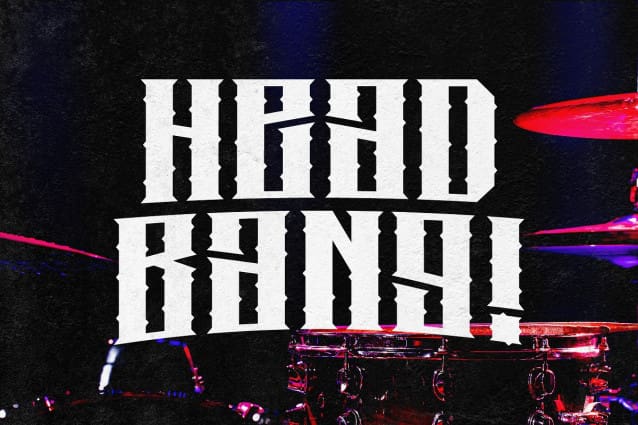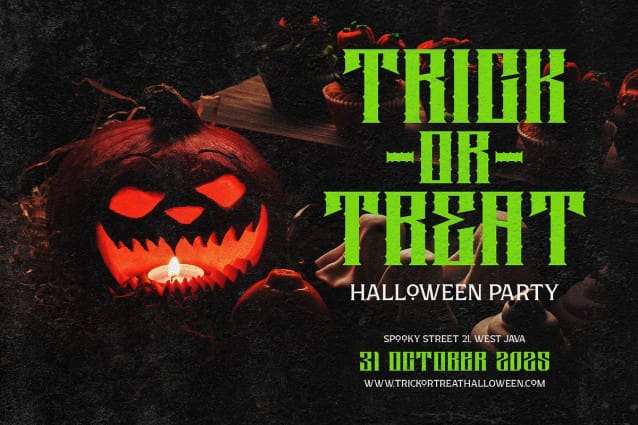
Haunted Graves Font
Haunted Graves is a boxy, angular font with sharp, spiked characters that bring a chilling edge to your designs. Perfect for horror-themed projects, this font creates an atmosphere of fear and suspense. Whether it’s for posters, titles, or spooky branding, Haunted Graves is the ideal choice to give your work a menacing, haunted feel.